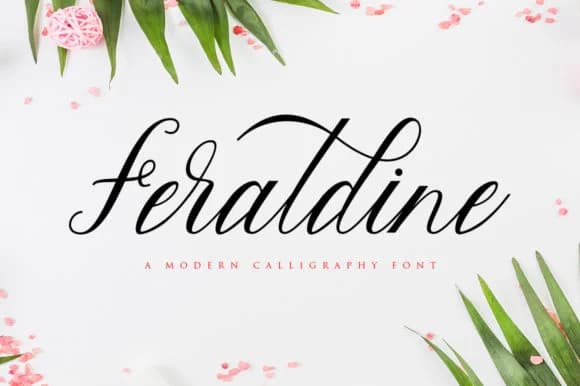
You're designing a wedding invitation suite and need something that feels personal without looking like a template. Feraldine Font from gatype is exactly what you reach for. This calligraphy typeface brings a fluid, handwritten elegance with flowing flourishes that catch the eye and feel individually crafted, rather than machine-generated.
The charm of Feraldine works across several specific contexts. Wedding invitation suites get immediate warmth and sophistication, while boutique skincare packaging and luxury cosmetics labels gain an upscale, artisanal feel that commands attention on shelves. Etsy shop owners use it for product tags, thank you cards, and branding materials that need personality. DIY craft sign makers appreciate how well it handles both headline sizes and smaller text without losing its character. The flourishes are detailed enough to feel genuinely luxurious without overwhelming a design, striking that balance where it reads as intentional rather than cluttered or trying too hard.
- Elegant, Flowing, Feraldine
Feraldine Font is a script font that shines as a display or heading face. Pair it with a clean sans-serif or serif font for body text β the contrast creates a clear hierarchy while the two styles stay balanced and easy to read.
Feraldine Font